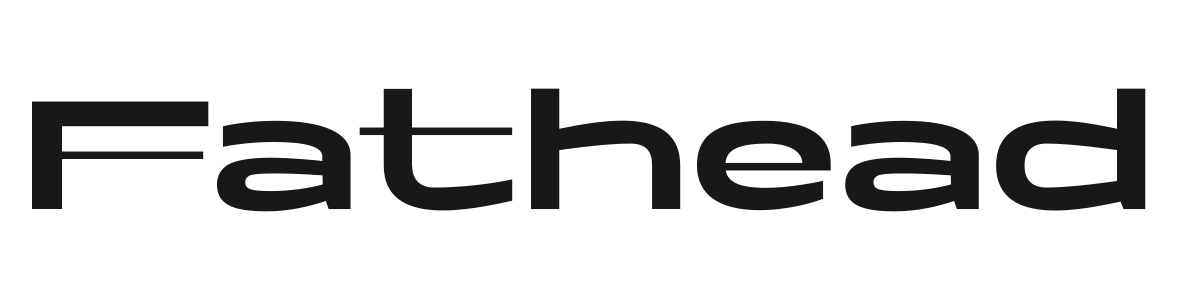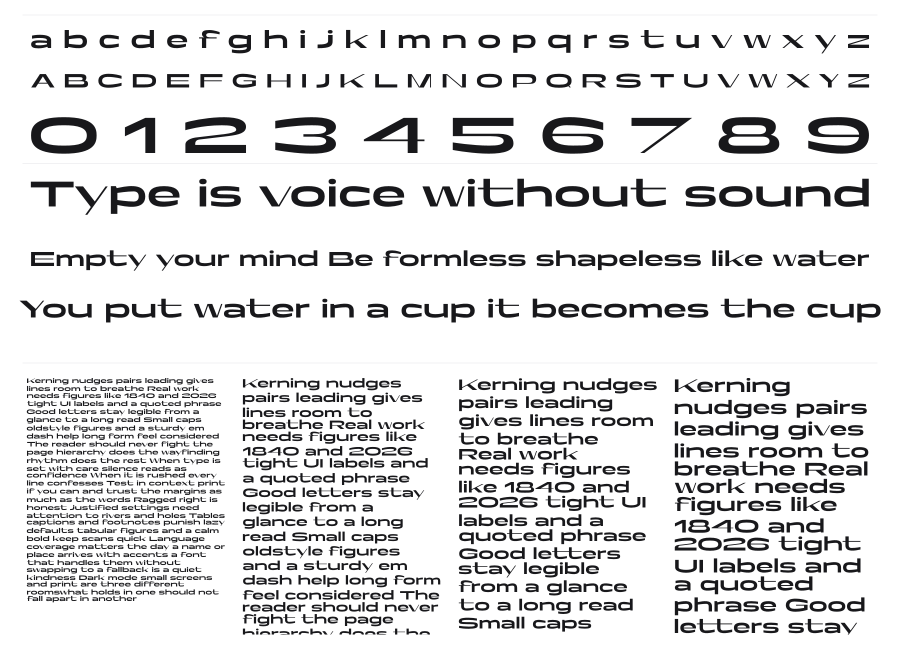
Fathead
Fathead is a wide extended display sans built on extreme stroke contrast, pushing right up to the edge of legibility. Its dramatic proportions and dense spacing create a bold, graphic presence that works as much as visual texture as it does typography. Three weights give it range across posters, book covers, and pattern-based layouts.